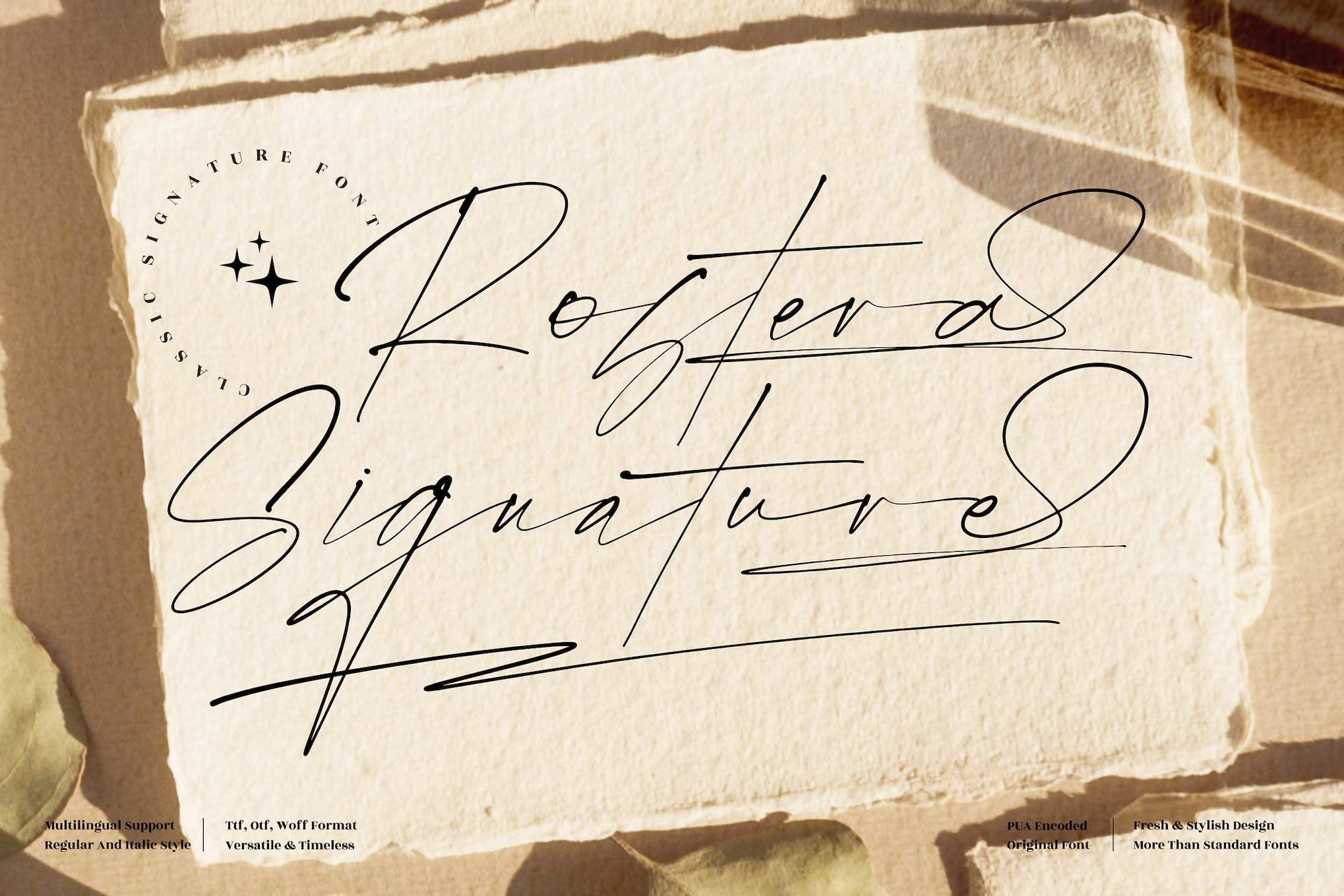
StudioGrand Designer Font
Meet StudioGrand, a designer font that effortlessly mimics the charm of handwritten style. Ideal for branding, magazine design, web projects, and more, this versatile font enhances your creative process. Accessing all its glyphs and swashes is a breeze with its PUA encoding. It includes OTF, TTF, and WOFF files, ensuring a smooth design experience. Enjoy StudioGrand for your next project.
Lemonade Informal Script
Lemonade Informal Script is a versatile and lively font that includes both uppercase and lowercase letters, numerals, extensive punctuation, and multilingual language support. It’s a font with a twist – every lowercase letter comes with finishing swashes and an alternative font option, adding a stylish and unique flair to your texts. Available in OTF and TTF formats.
Otella Signature Typeface
Discover the distinct and fresh Otella Signature Typeface. This handcrafted font is ideal for a wide range of uses, from logos, stationery, and posters to apparel, wedding invitations and layout designs. The package includes three varieties; Otella Regular, Otella Alt, and Otella Swash. For assistance or inquiries, feel free to reach out via email.
Strainger Unique Typeface
Introducing the Strainger Unique Typeface, a modern and cool handwritten style font from Cotbada Studio. Perfect for infusing personality into your design projects such as logos, labels, and blog headlines. It offers multilingual support for several languages and is constantly updated for improved functionality. Strainger is more than just a font, it’s a stylish design asset for creators.
Rostera Dynamic Script
Rostera Dynamic Script is a versatile font designed to enhance your creative digital and print work. Ideal for adding a unique touch to posters, social media content, branding or personal projects, it’s provided in various formats including OTF, WOFF, and TTF. Enjoy the flexibility and ambience it adds to your creative endeavors.